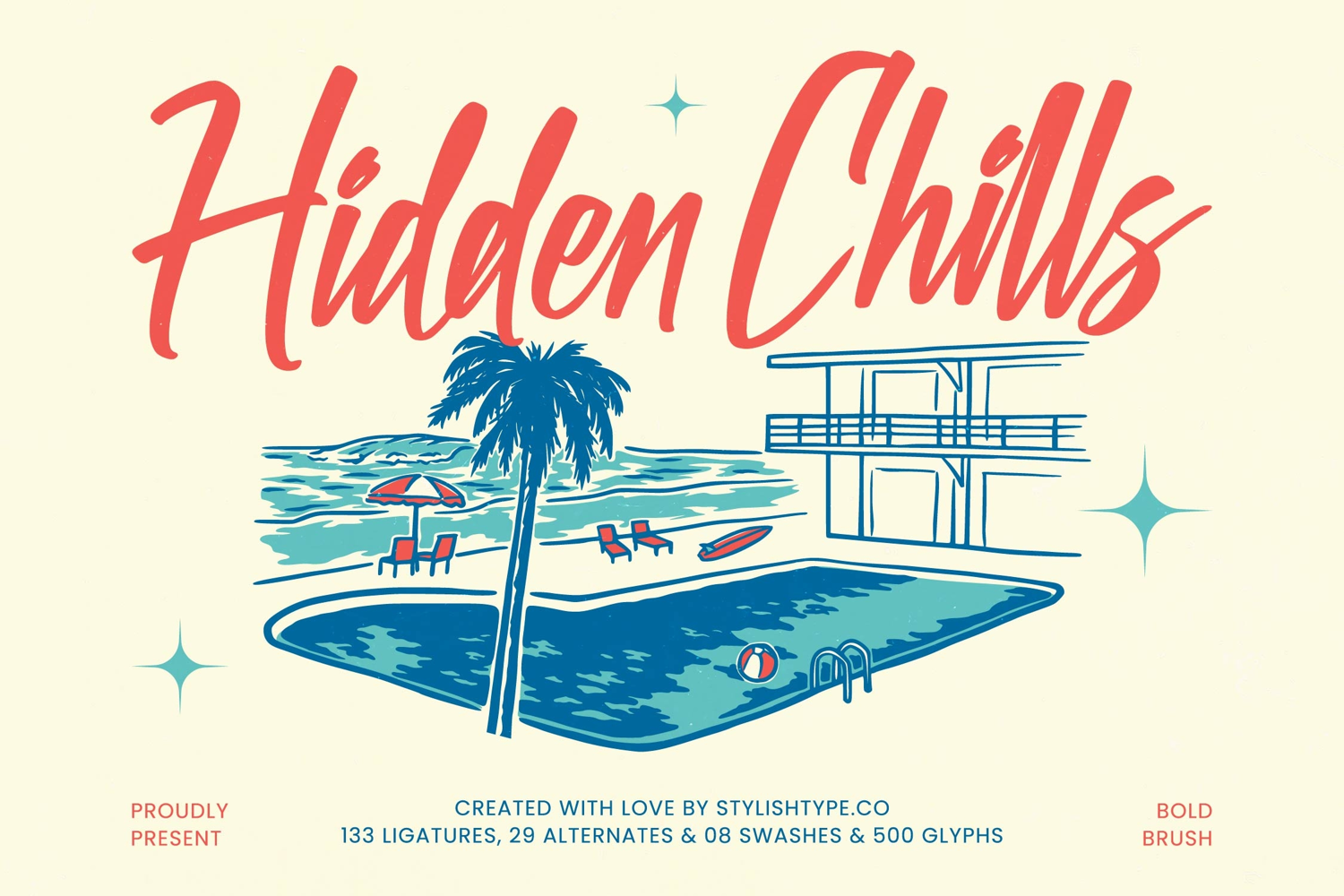
Hidden Chills - Bold Brush Font
Hidden Chills
Hidden Chills Italic
Hidden Chills - Bold Brush Font is the perfect choice to inject instant energy and authentic texture into your designs. This dynamic script captures the carefree, sun-drenched spirit of vintage California advertising and surf culture, rendered through expressive, high-speed brush strokes. Its substantial weight ensures maximum legibility and immediate visual presence, making it an indispensable tool for headlines that demand attention while maintaining a genuine, hand-painted warmth.